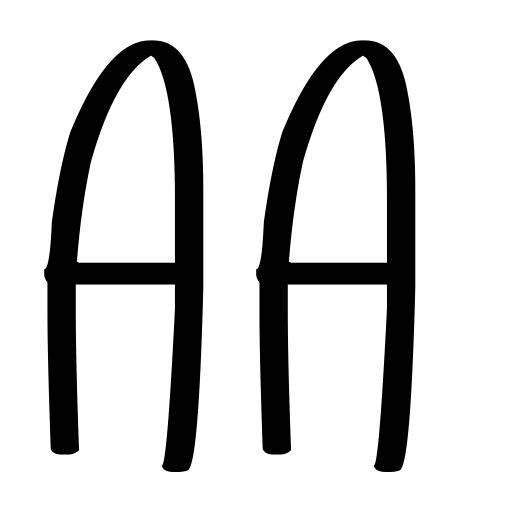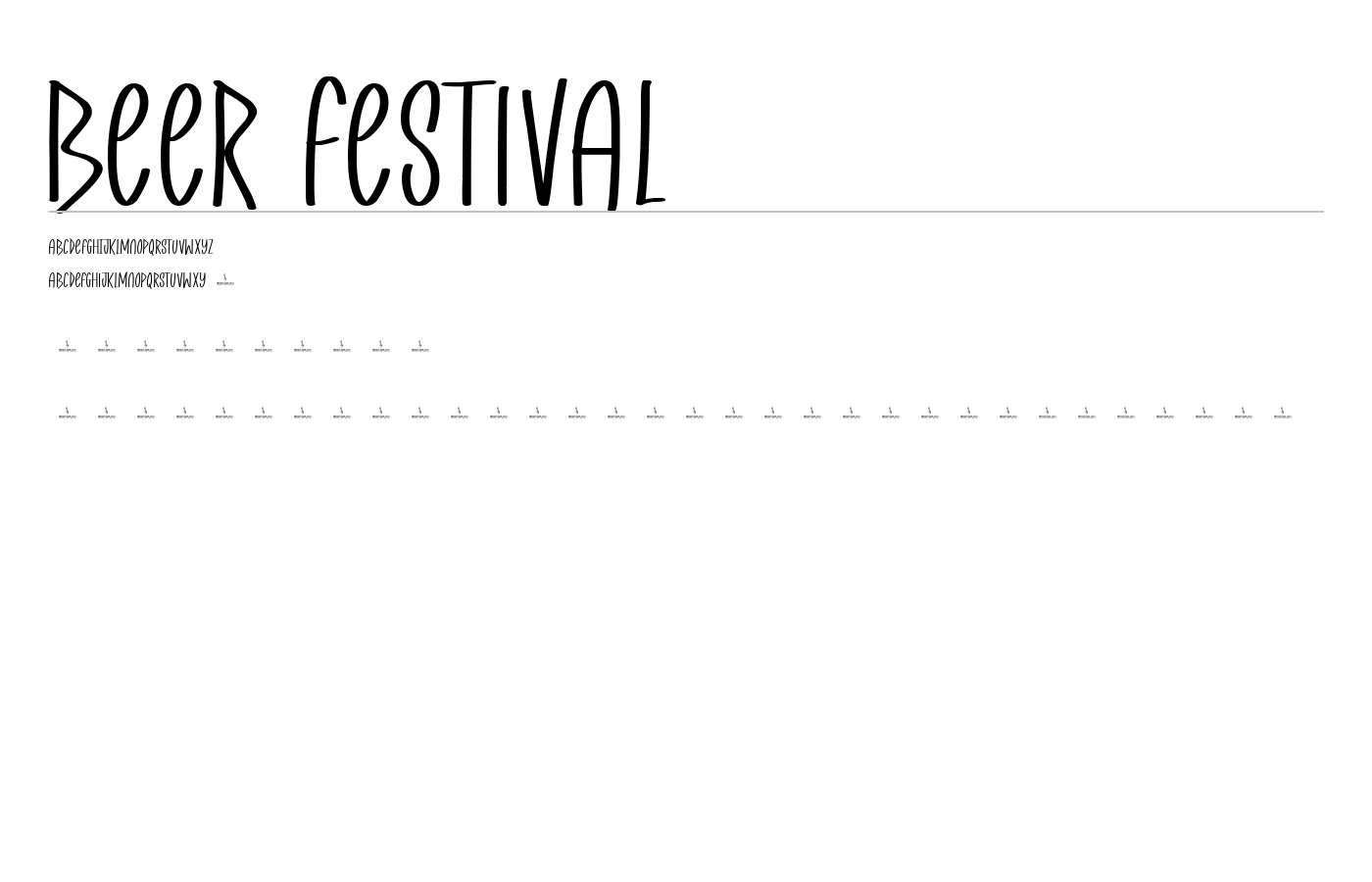
Beer Festival Font is a playful and casual sans serif with tall, narrow letterforms and a hand-drawn feel. Its irregular strokes and quirky shapes give it a fun, energetic personality, making it ideal for festive or informal branding, event posters, and packaging that seeks a lively, approachable vibe. This font works best in headlines or display uses where its unique character can shine.